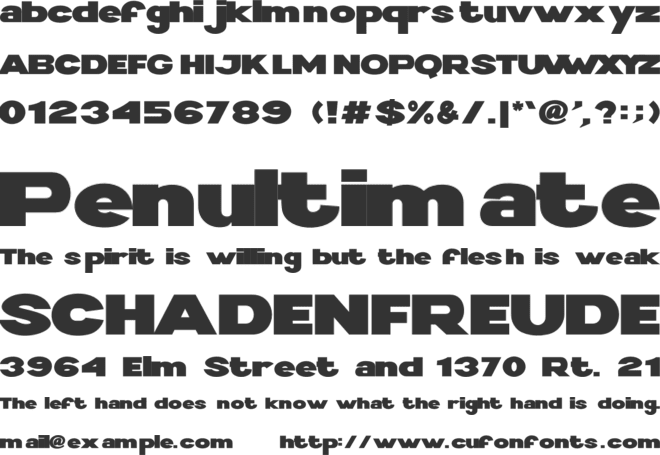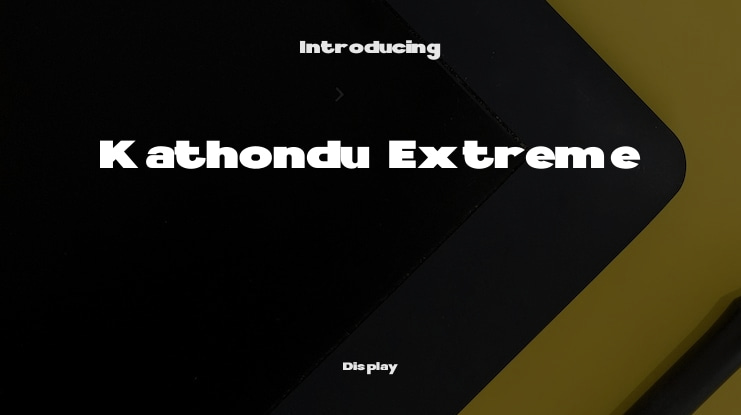
Kathondu Extreme Font
Hii, am eza studio crew. we would like to introduce our new font sans serif type, this font is just a demo not allowed for commercial use. if you have a need for commercial purposes can contact our team. thank you hopefully can be understood